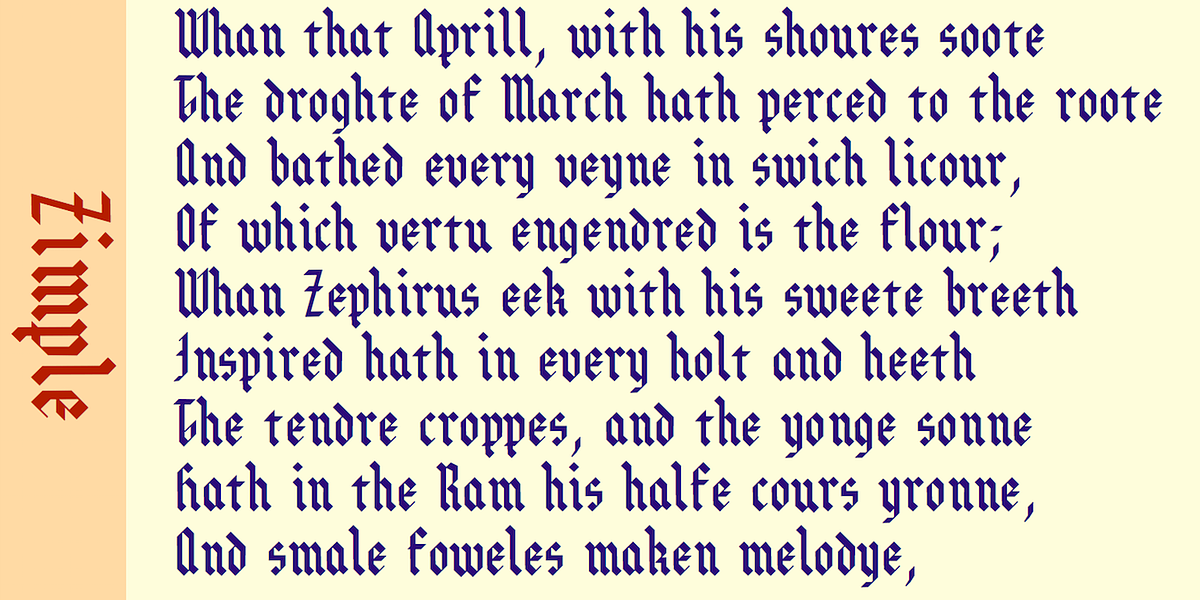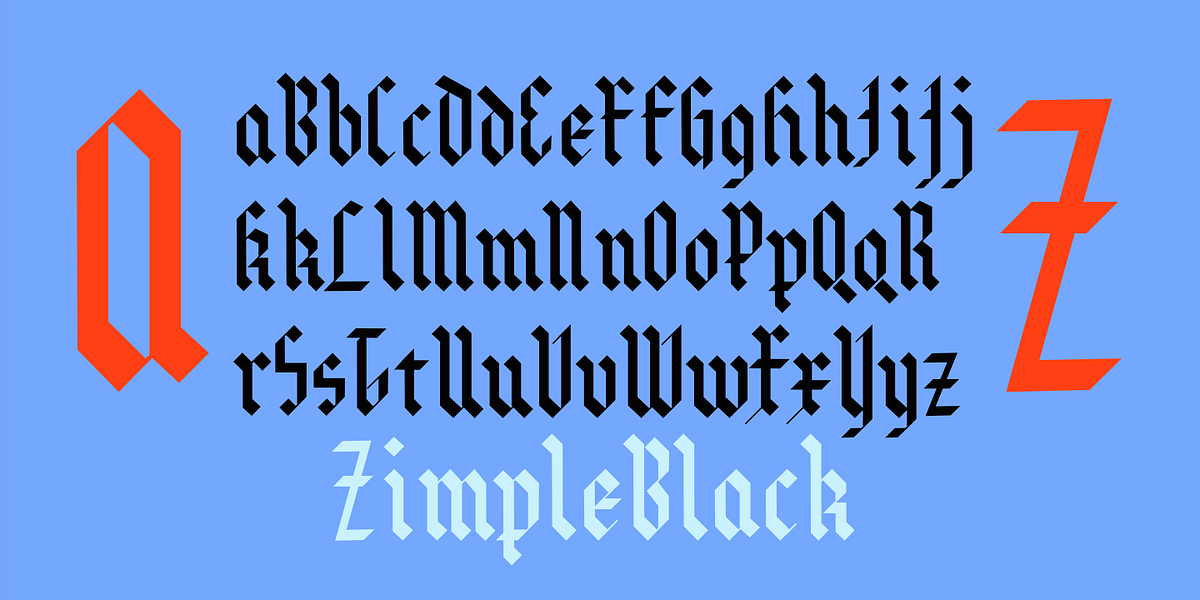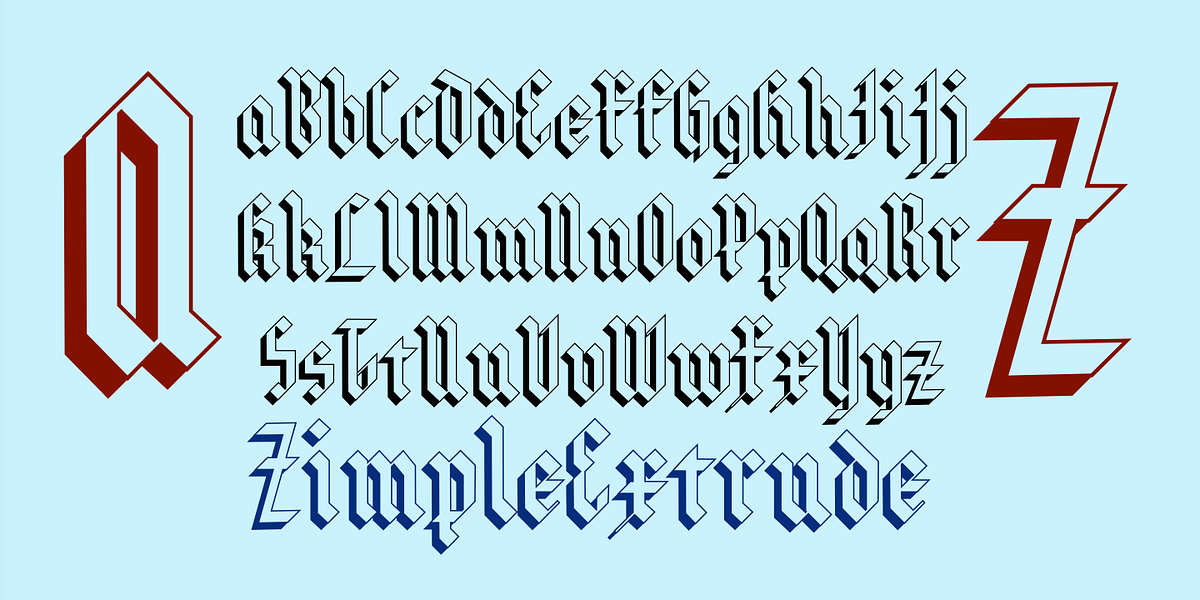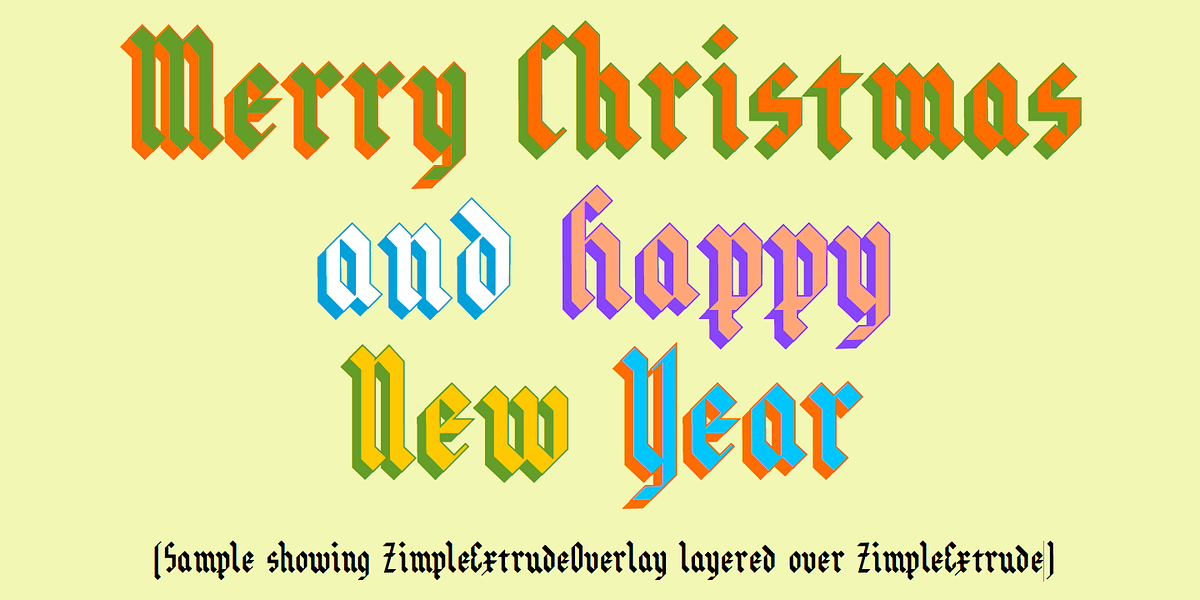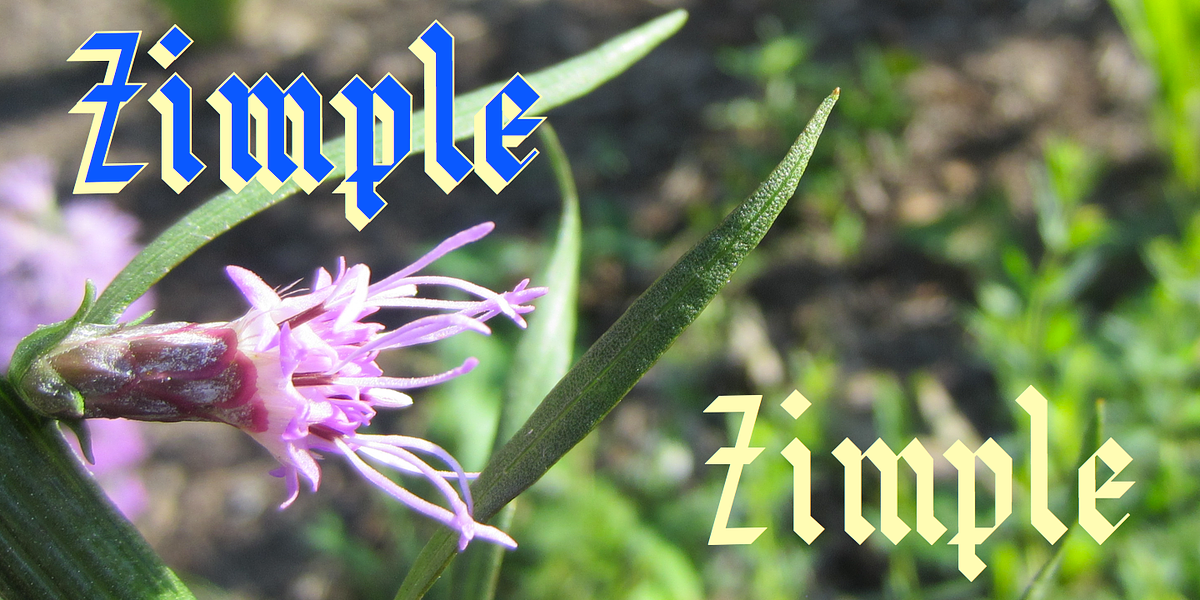
Zimple
Zimple is a straightforward blackletter font characterized by its simplicity and lack of curves. It's specifically designed to be layered with the Zimple Shadow font, creating bicolored lettering effects reminiscent of 1940s design trends.